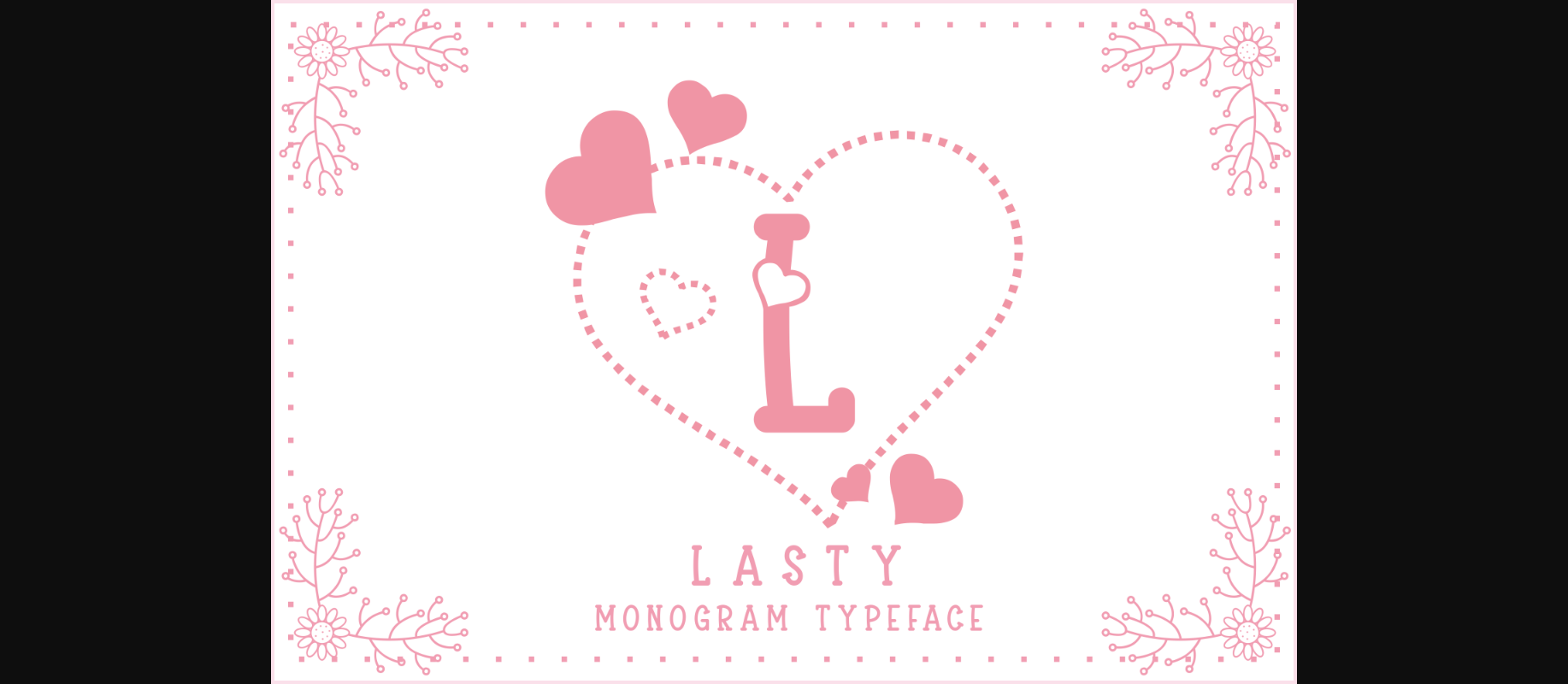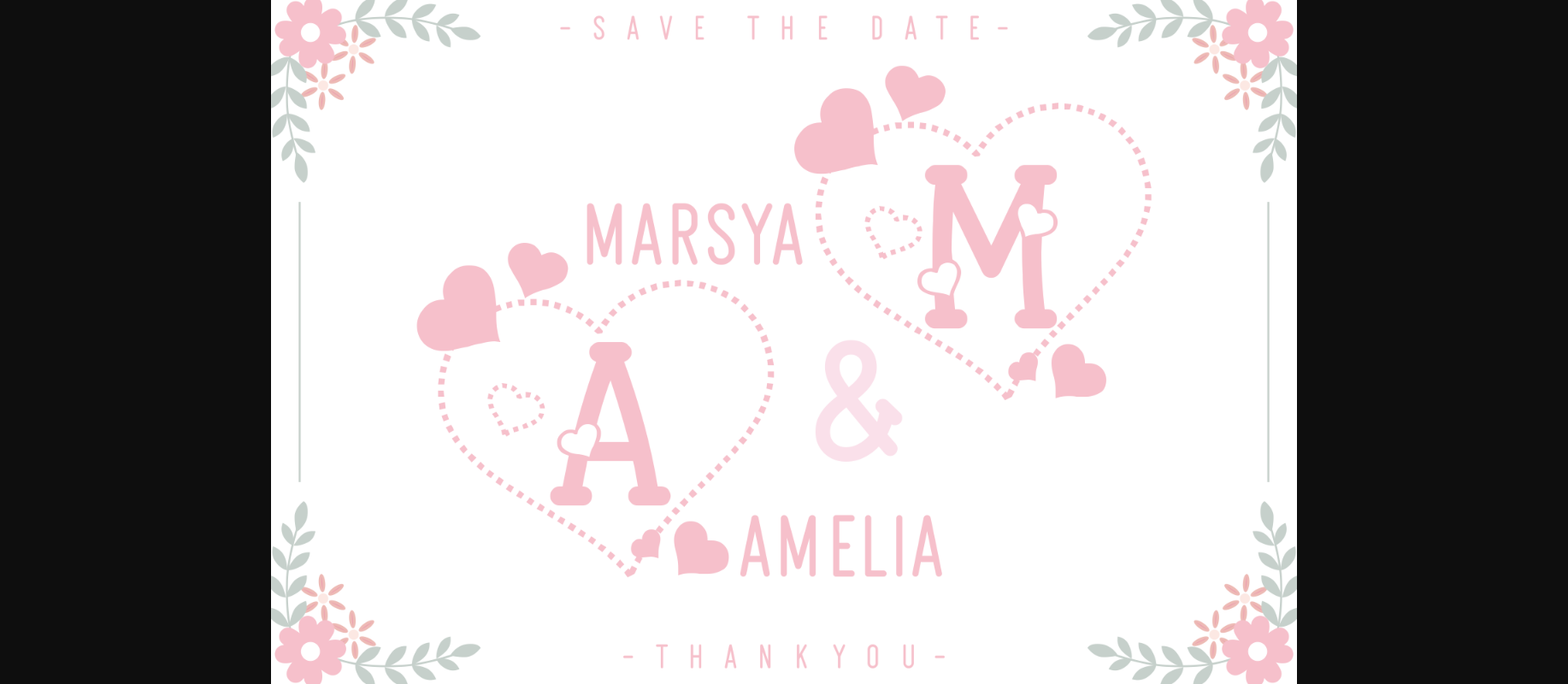
About Lasty Font
Lasty is a sweet and whimsical decorative font. Fall in love with its authentic feel and use it to create gorgeous wedding invitations, beautiful stationary art, eye-catching social media posts, and cute greeting cards.